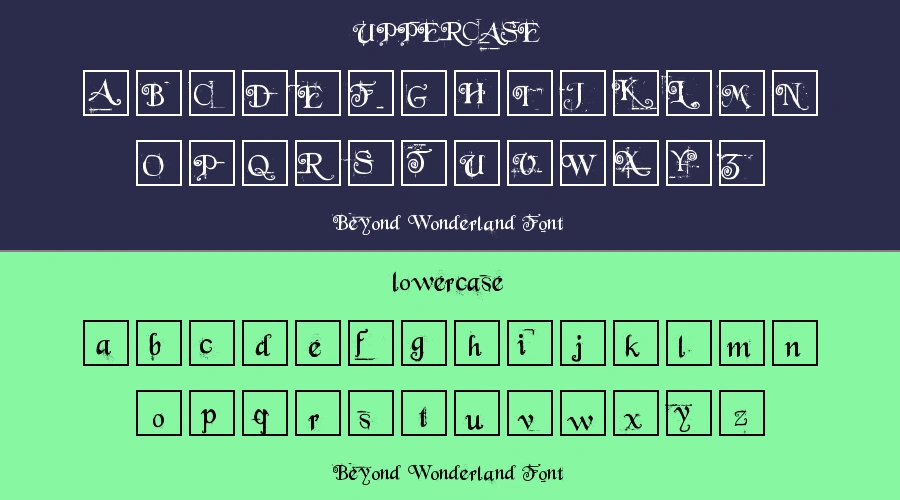
About Beyond Wonderland Font
When typographic excellence matters most, Beyond Wonderland Font delivers through its thoughtful blend of systematic design and technical accuracy. Specially crafted for architectural plans, it offers the accuracy and sophistication required for sophisticated design work. Every detail serves a purpose.
The character set showcases thoughtful details like dramatic swashes alongside functional case-sensitive forms. This proves especially valuable in page numbers, where texture integration directly influences results. Particular attention was paid to ascender height and regulatory compliance during development.